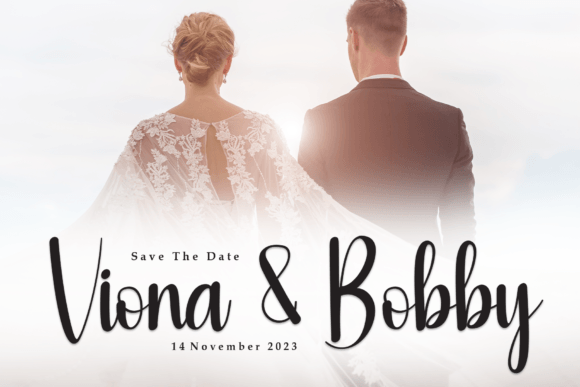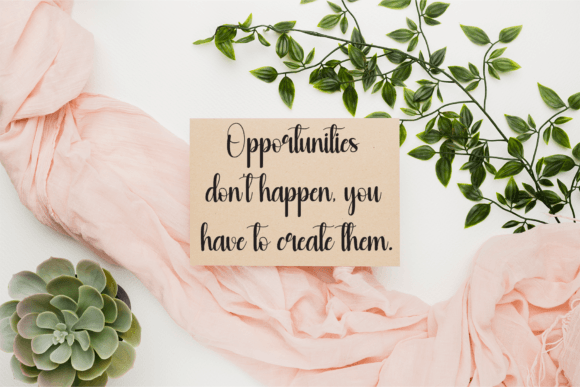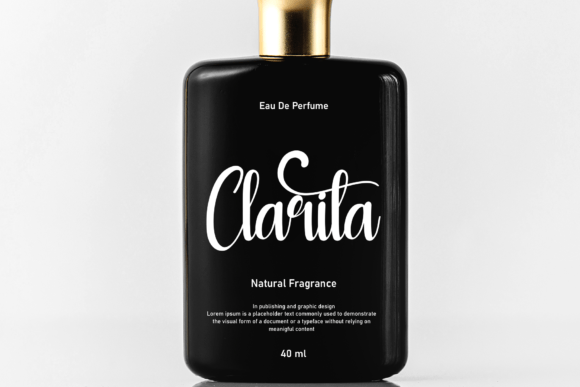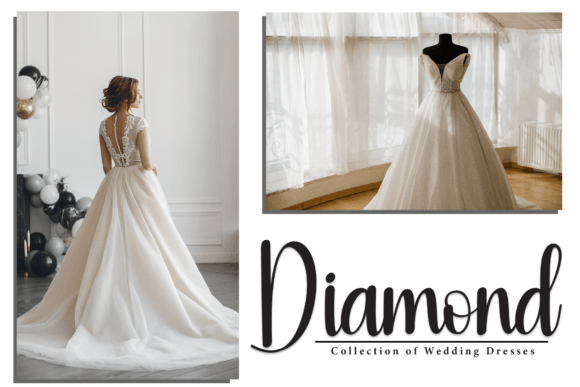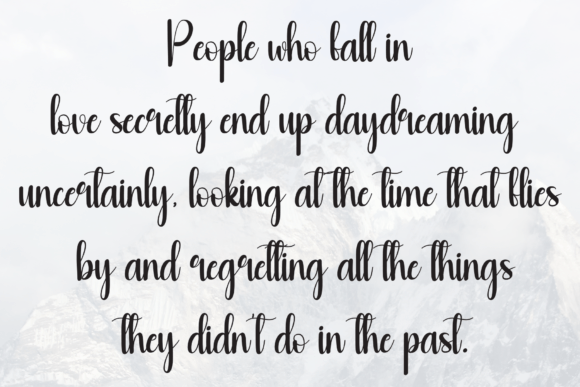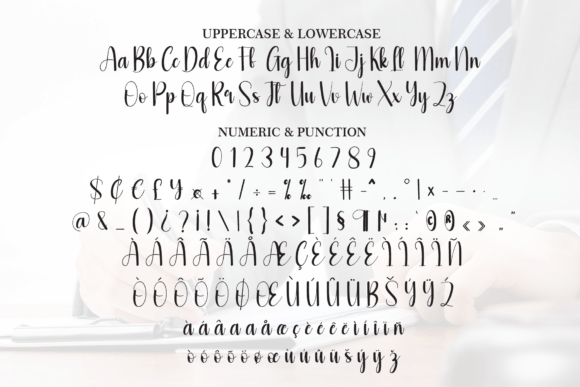
Introducing Adjustment Font: Elevate Your Designs with Elegance
Are you a designer, crafty DIY enthusiast, or social media influencer looking for a font that can add a touch of sophistication to your creations? Look no further than Adjustment Font, a beautiful, handmade script font designed to bring a dash of elegance to your designs. In this article, we’ll dive into the world of Adjustment Font, exploring its features, uses, and benefits, and show you how it can transform your creative projects into stunning works of art.
The Story Behind Adjustment Font
Adjustment Font is a carefully crafted, handwritten font that boasts a unique, magical quality. Its creator(s) have poured their heart and soul into designing a font that not only looks great but also feels special. The result is a script font that exudes elegance, making it perfect for a wide range of applications, from Instagram posts and stories to DIY projects, branding, and more.
Key Features of Adjustment Font
- Handwritten with love: Adjustment Font is a genuine, handmade script font, giving it a personal touch that’s hard to replicate with generic fonts.
- Elegant and sophisticated: The font’s flowing lines and carefully designed letterforms make it perfect for projects that require a touch of refinement.
- Highly versatile: Adjustment Font can be used for a wide range of creative projects, from social media graphics and posters to branding, packaging, and DIY crafts.
- Easy to read: Despite its elegant nature, Adjustment Font remains highly legible, making it suitable for both short and long-form content.
Using Adjustment Font for Instagram and Social Media
As a social media influencer or designer, you know how important it is to stand out in a crowded feed. Adjustment Font can help you do just that. With its unique, handwritten style, this font can add a touch of personality to your Instagram posts, stories, and bio. Use it to:
- Create eye-catching captions and quotes
- Design engaging graphics and illustrations
- Develop a consistent brand voice and aesthetic
Using Adjustment Font for DIY Projects
Crafty DIY enthusiasts will love Adjustment Font for its versatility and creative potential. Use this font to:
- Design custom signs, posters, and prints
- Create personalized gifts, such as mugs, t-shirts, and cards
- Develop unique branding elements, like labels and stickers
Tips for Getting the Most Out of Adjustment Font
To truly make Adjustment Font shine in your designs, keep the following tips in mind:
- Experiment with colors: Adjustment Font looks great in a variety of colors, so don’t be afraid to try out different hues and combinations.
- Play with textures and patterns: Add depth and interest to your designs by incorporating textures and patterns that complement the font.
- Mix and match with other fonts: Combine Adjustment Font with other fonts to create visually appealing contrast and hierarchy.
Adjustment Font is a game-changer for designers, DIY enthusiasts, and social media influencers looking to elevate their creations with a touch of elegance. With its unique, handwritten style and versatility, this font is sure to become a staple in your design toolkit. Whether you’re working on a DIY project, creating social media content, or developing a brand identity, Adjustment Font has the power to transform your ideas into stunning works of art.